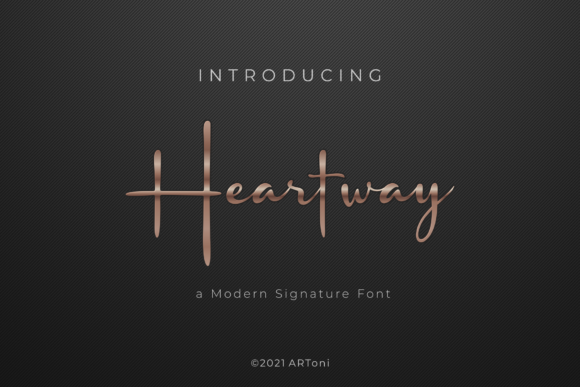
Embark on a typographic journey with Heartway Font, an enchanting script font family meticulously designed by ARToni. Its elegant curves and graceful strokes capture the essence of handwritten beauty, transforming your digital creations into mesmerizing works of art.
Unleash your creativity and make a lasting impression with Heartway Font. Its carefully crafted characters, each imbued with a unique charm, bring a touch of sophistication and personality to your designs. Whether you're crafting eye-catching logos, branding materials, or heartfelt quotes, Heartway Font promises to elevate your work to new heights.
Immerse yourself in a world of boundless possibilities with Heartway Font. Its PUA encoding grants you effortless access to a treasure trove of glyphs and swashes, empowering you to add intricate details and flourishes that captivate the eye. The versatility of Heartway Font knows no bounds, making it the perfect choice for a diverse range of projects.
Step into the spotlight with Heartway Font's undeniable charisma. Its alluring style commands attention, ensuring your designs stand out from the crowd. Watch as your creations captivate audiences with their timeless elegance and effortless grace. Embark on a typographic adventure with Heartway Font today and unlock the gateway to a world of captivating designs that leave an enduring impression.